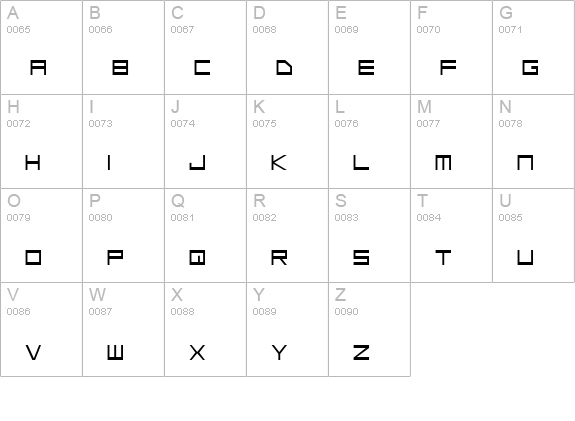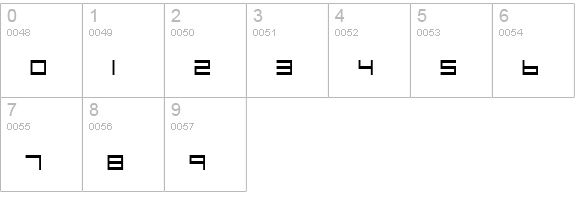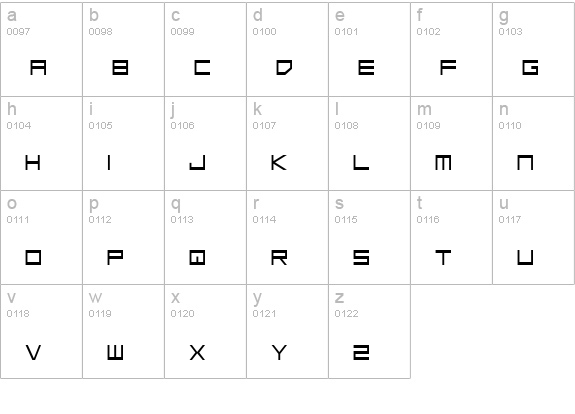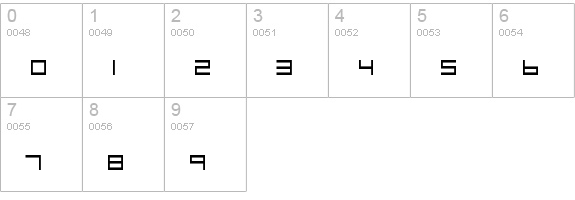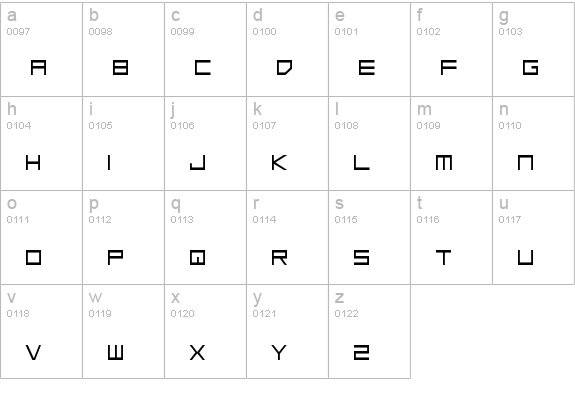
Low Gun Screen font is a unique and eye-catching typeface that exudes a modern and edgy vibe. Its sleek and minimalistic design makes it perfect for various design projects, from posters to branding materials. The font features clean lines and sharp angles that give it a contemporary look. What sets Low Gun Screen font apart is its versatility and readability, making it suitable for both display and body text. Whether you're designing a sleek website or creating a striking advertisement, this font will surely make your text pop. The best part is that Low Gun Screen font is completely free to download at FontsMarket.com. So, you can easily add this stylish font to your collection without breaking the bank. Don't miss out on the opportunity to elevate your designs with this modern and sophisticated typeface. Download Low Gun Screen font today and give your projects a fresh and stylish touch!